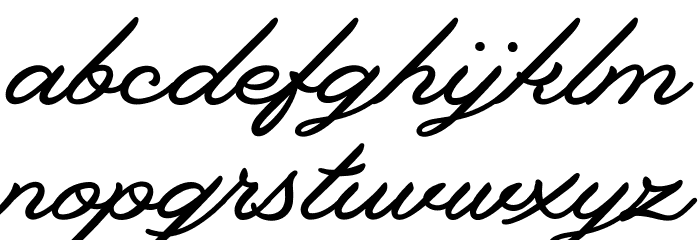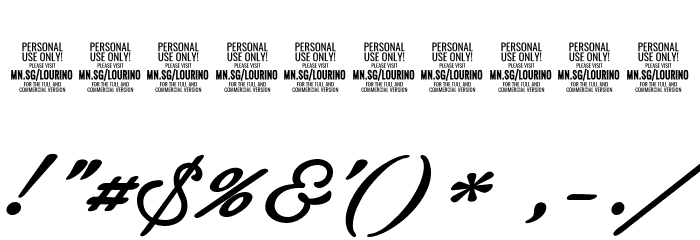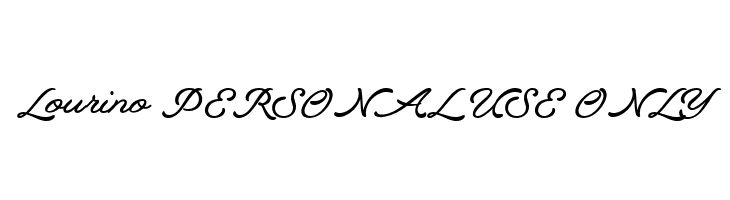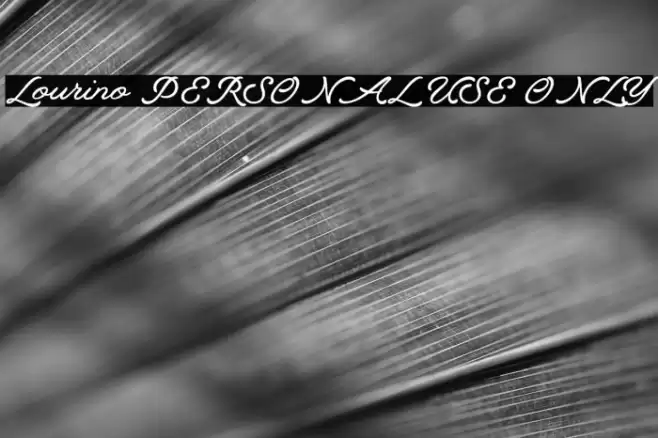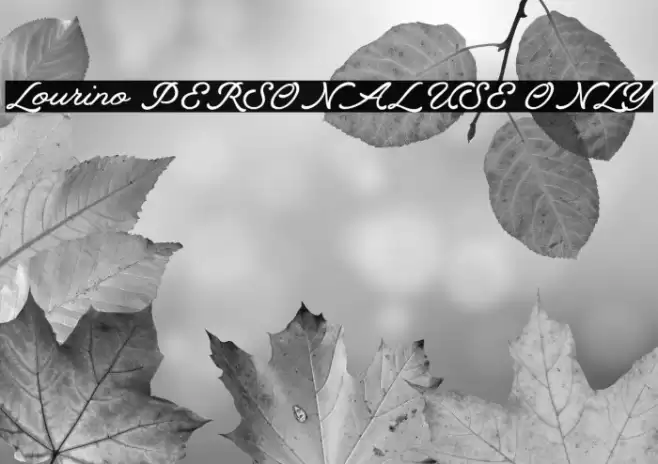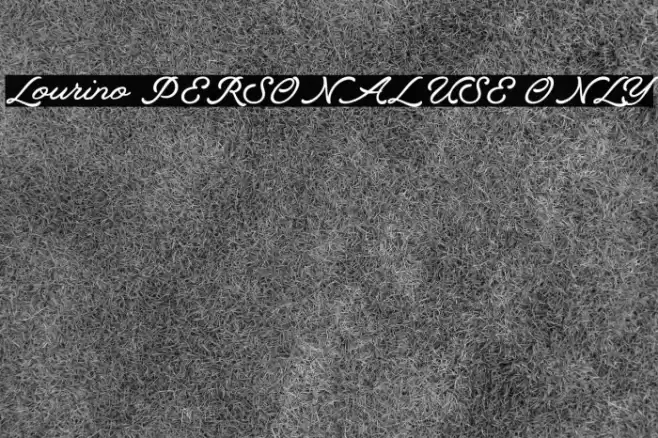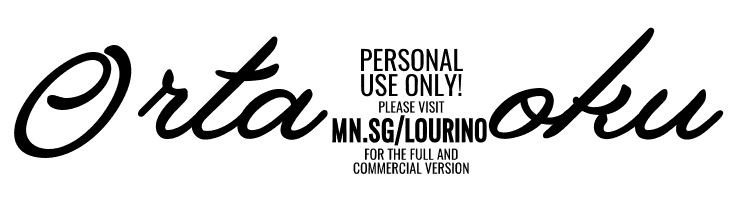
Lourino PERSONAL USE ONLY Font
This font features an elegant and flowing script style, characterized by its smooth, cursive letterforms that mimic the fluidity of handwriting. The uppercase letters are gracefully connected, while the lowercase letters maintain a consistent slant and rounded edges, giving the font a harmonious and sophisticated appearance. The numerals and special characters are designed to complement the overall script style, ensuring a cohesive look across all text. This font exudes a sense of elegance and refinement, making it suitable for formal and decorative applications.
An elegant, flowing script font with smooth, cursive letterforms.
- Proposed Projects: Ideal for wedding invitations, greeting cards, elegant branding, and decorative headings.
- Overall Style: Elegant, Decorative
- Use Case: Logos, Invitations, Decorative text